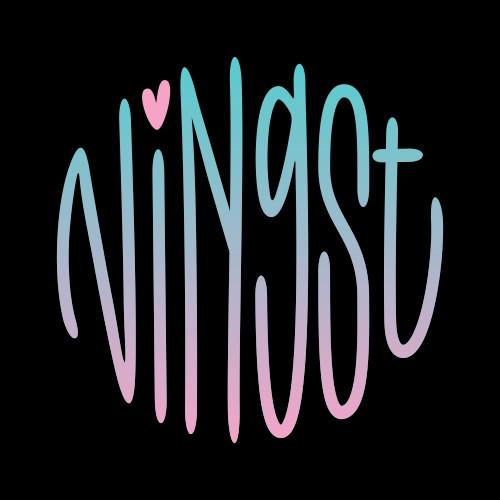
Ningst Only Peace Font Description
Ningst Only Peace is a childish, easy-to-read handwritten font that conveys impeccable friendliness. Whether you’re using it for crafts, digital design, presentations, or making greeting cards, this font has the potential to become your favorite go-to font, no matter the occasion!